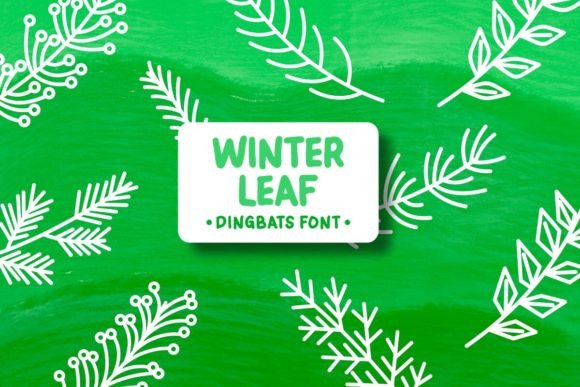
Adorn your designs with the captivating strokes of Winter Leaf, a font family that's more than just a collection of characters; it's a gateway to a world of artistic expression. Each dingbat, meticulously crafted by Pian45, is a testament to the boundless creativity that lies within the realm of typography.
Unleash your imagination and let Winter Leaf be your guide as you traverse the vast landscapes of visual communication. With its charming winter leaf theme, this font family breathes life into your designs, transforming them into captivating masterpieces that resonate with warmth and whimsy.
Step into a realm where fonts transcend their traditional role and become vibrant, playful companions on your creative journey. Winter Leaf isn't merely a tool; it's an extension of your artistic vision, amplifying your message with a touch of magic and delight.
Harness the power of Winter Leaf to craft designs that resonate with your audience, leaving an indelible mark on their hearts and minds. Its intricate details and enchanting aura will captivate their attention, drawing them deeper into the immersive world you've created.
With Winter Leaf, ordinary words become extraordinary tales, inviting readers to embark on an adventure with every stroke. It's not just a font; it's a storytelling device that transforms your designs into captivating narratives.
Embrace Winter Leaf and unlock a new dimension of creativity. Let its enchanting charm ignite your imagination and elevate your designs to new heights. Discover the boundless possibilities that await you as you immerse yourself in the world of Winter Leaf.